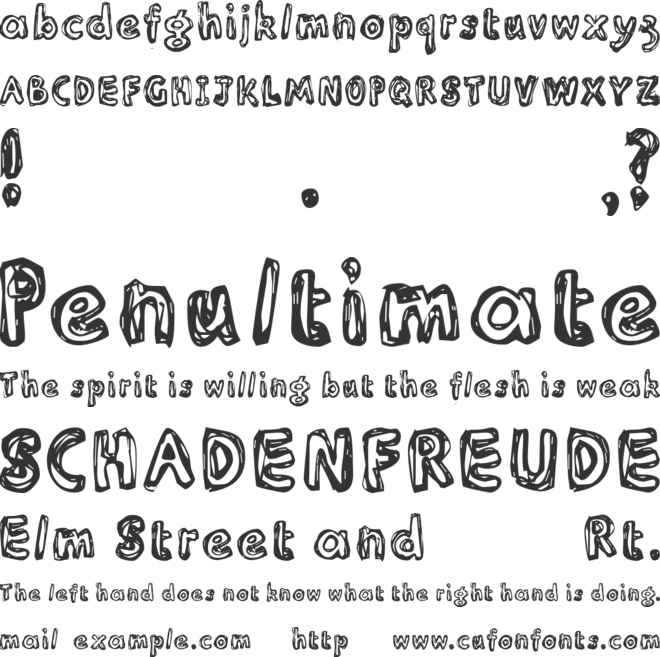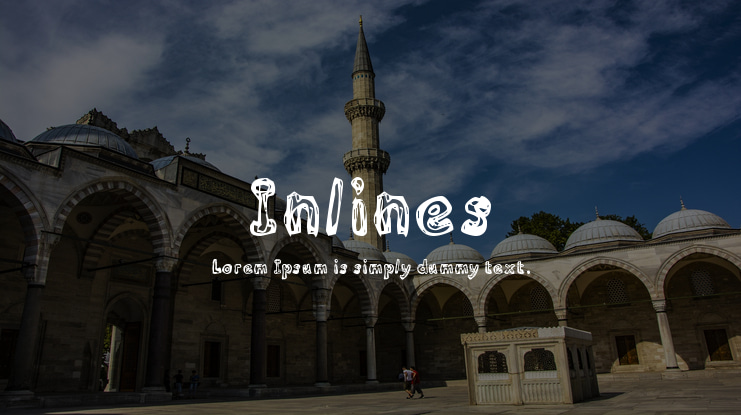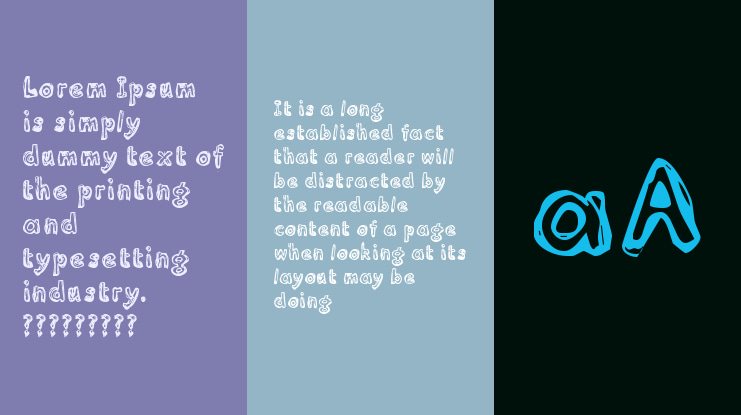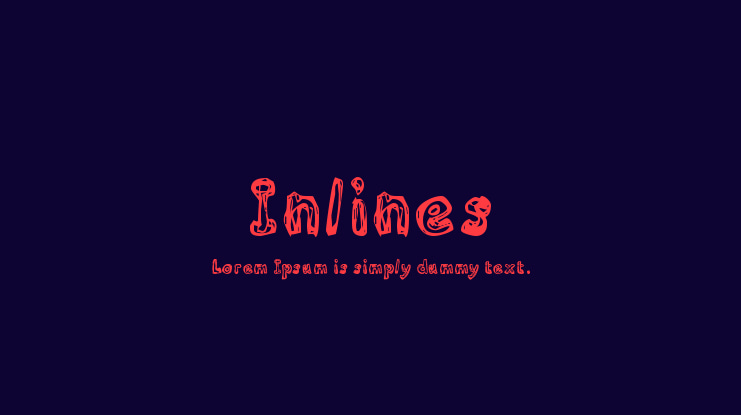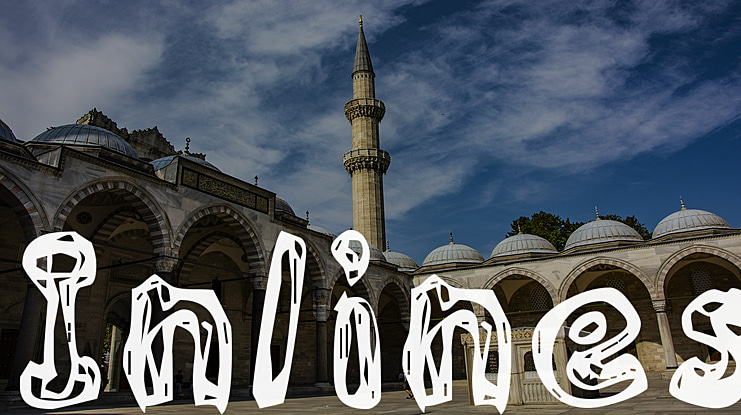
Inlines Font
Of course, fonts always look good big, don't they? This one looks great when it's nice and big. Why, you ask? Because it has subtle detail which becomes apparent when you look at it large. Trust me...